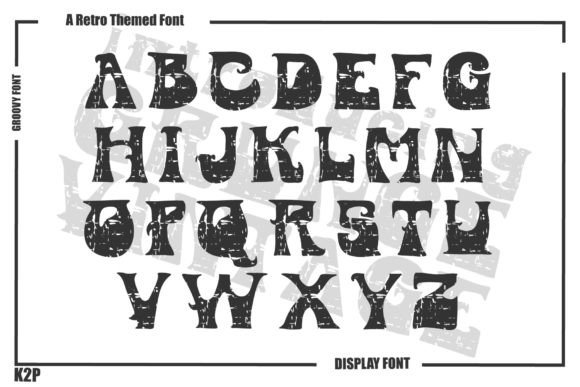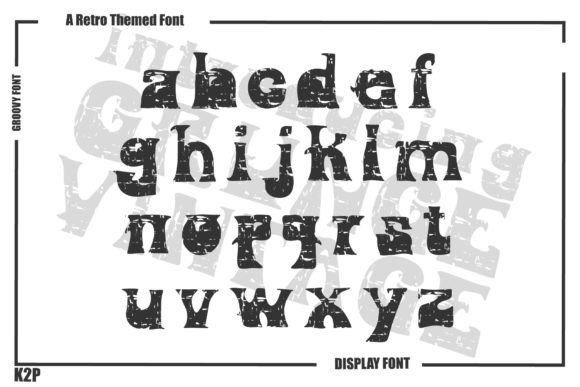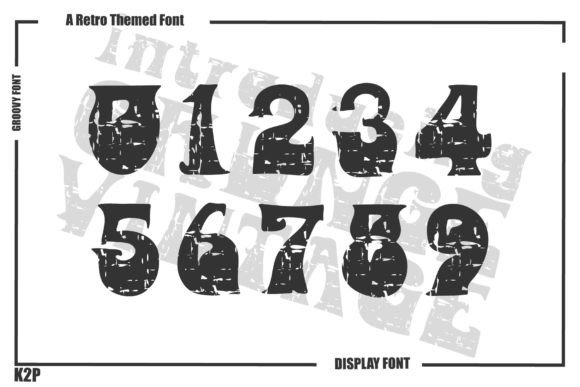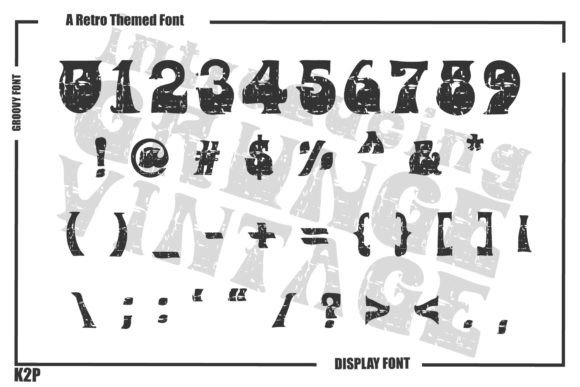
The Perfect Blend of Grunge and Vintage: Unlocking Design Potential
As a designer, there’s no feeling quite like the rush of creativity that comes with discovering a new, game-changing font. Imagine you’re working on a project, pouring over sketches and iterations, and then – suddenly – the perfect font comes along, elevating your entire design to the next level. This is exactly what happens when you fall in love with the Grunge Vintage Font, a bold, incredibly cool, and assertive serif font that’s guaranteed to leave a lasting impression.
The Grunge Vintage Font is more than just a stylish addition to your design arsenal – it’s a powerful tool for conveying speed, energy, and a sense of adventure. Whether you’re working on a sports-themed project or something entirely different, this font is sure to bring a unique touch to your work. With its endless variations and versatile style, the Grunge Vintage Font is an invaluable asset for any designer looking to take their designs to the next level.
Grunge Vintage Font Key Features
- Unique Characteristics: Distressed, worn, and vintage aesthetic, with subtle texture and imperfections, evoking a nostalgic feel
- Font Style: Casual, informal, and relaxed, suitable for creative and artistic projects
Grunge Vintage Font Review
I recently had the chance to work with the Grunge Vintage Font, and overall, it’s a great addition to any design project. ✨ The distressed texture and vintage feel immediately transport you back in time, adding a unique touch to your designs. ✨ The font is also highly customizable, with a wide range of options for color, size, and spacing. ✨
One of the standout features of the Grunge Vintage Font is its versatility. It can be used for a variety of projects, from logos and branding to posters and print materials. The font is also highly legible, making it easy to read even in its distressed state.
However, there are a few limitations to keep in mind. ⚠️ The font can be quite heavy, which may not be suitable for all designs. Additionally, some of the characters may be difficult to read at very small sizes. ⚠️
Overall, I’d highly recommend the Grunge Vintage Font for any project that requires a vintage or distressed look. While it may have some limitations, its unique feel and customization options make it a valuable addition to any designer’s toolkit.
Pros:
- Unique, distressed texture
- Legible even in distressed state
- Versatile for a variety of projects
Cons:
- Font can be quite heavy
- Some characters may be difficult to read at small sizes
Tips for Getting the Most Out of the Grunge Vintage Font
To achieve the best results with the Grunge Vintage Font, try using it in conjunction with distressed textures and backgrounds.
Experiment with different font sizes, colors, and styles to create a unique look.
Consider using the font in combination with other grunge-inspired elements, such as ripped paper and worn-out wood textures.
The Grunge Vintage Font is perfect for creating:
Music-inspired designs and posters.
Retro-style advertisements and flyers.
Distressed and worn-out text effects for various designs.
Alternatives to Grunge Vintage Font
Great Vibes Font is a beautiful, elegant script font with a distressed and vintage feel. It is ideal for use in titles, headings, and quotes where you want to add a touch of sophistication and nostalgia.
Compared to Grunge Vintage Font, Great Vibes Font has a more refined and polished look, making it suitable for a wider range of designs. It also has a more uniform texture, whereas Grunge Vintage Font has a more random and distressed look.
Pacifico Font is a modern script font with a relaxed, beachy feel. It is perfect for use in titles, headings, and body text where you want to convey a sense of calmness and serenity.
Compared to Grunge Vintage Font, Pacifico Font has a more laid-back and casual look, making it suitable for designs that require a more relaxed tone. It also has a more consistent texture, whereas Grunge Vintage Font has a more varied and distressed look.